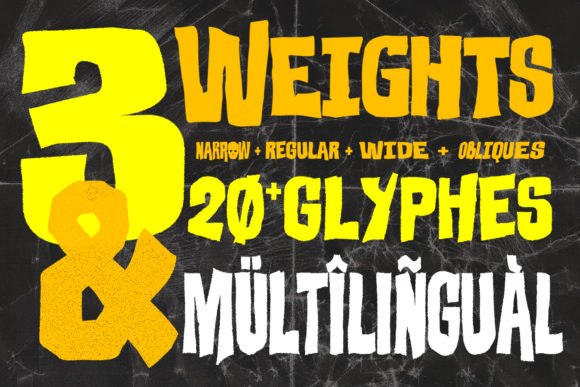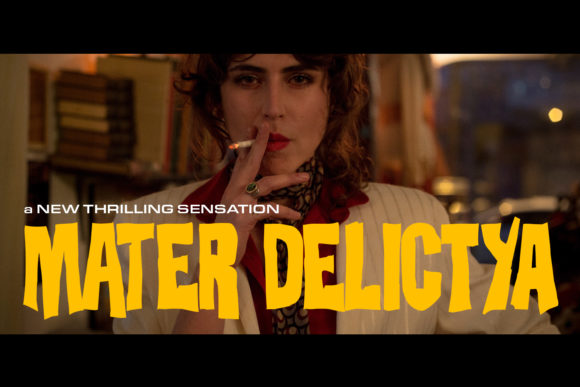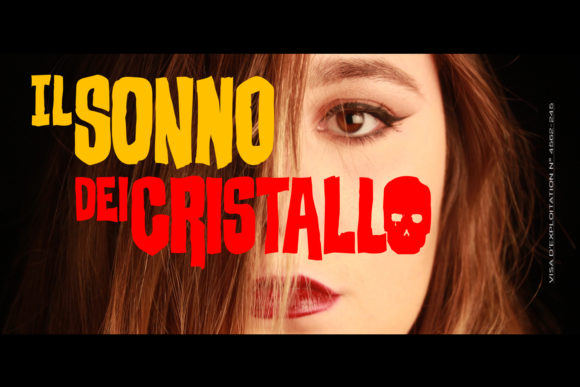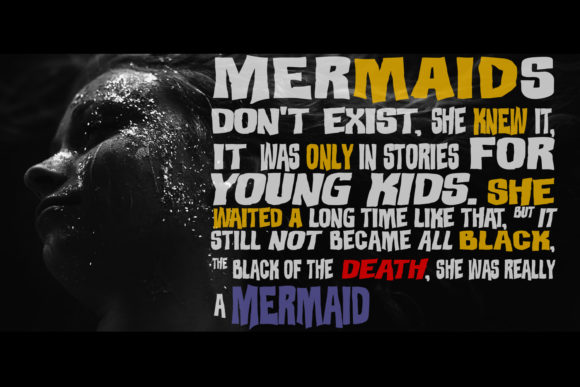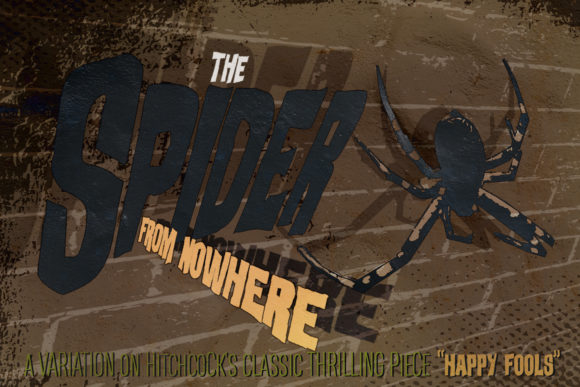
The Gialle Family Font: A Nostalgic Tribute to Golden Era European Cinema
Are you a designer, crafty enthusiast, or simply a fan of vintage European cinema? Look no further than the Gialle Family Font, a true type homage to the golden era of European cinema from the mid-seventies. Inspired by the Italian style movies known as Gialli, this font family is a must-have for anyone looking to add a touch of nostalgia and sophistication to their designs.
The Gialli: A Unique Italian Style of Cinema
The Gialli, also known as Gialle, was a particular Italian style of movie that emerged in the 1970s. Introduced by masters like Dario Argento and Lucio Fulci, these films were known for their stylish and suspenseful storytelling, often blending elements of mystery, thriller, and horror. The Gialli films were characterized by their use of vibrant colors, elaborate set designs, and a distinctive visual style that has become iconic in the world of cinema.
The Gialle Family Font: A Tribute to the Golden Era
The Gialle Family Font is a typographic tribute to the golden era of European cinema, specifically the Gialli films of Italy. This font family consists of three weights, which can be used to create endless unique designs with just one download. The bold letters of the Gialle font have exceptional readability, making them perfect for a variety of design applications, including:
- Movie posters and film graphics
- Album sleeves and music packaging
- Halloween party flyers and invitations
- Typography art and design projects
Design Possibilities with the Gialle Family Font
With the Gialle Family Font, the design possibilities are endless. The three weights included in the font family allow you to experiment with different typography styles, from bold and eye-catching to elegant and refined. Here are a few ideas to get you started:
- Create a vintage-style movie poster using the bold weight of the Gialle font.
- Design an album sleeve with a distressed, worn look using the medium weight.
- Make a spooky Halloween party flyer with the light weight of the Gialle font.
Why Choose the Gialle Family Font?
So why choose the Gialle Family Font for your design projects? Here are just a few reasons:
- Unique and nostalgic style: The Gialle font family offers a distinctive and retro aesthetic that’s sure to stand out in any design.
- High readability: The bold letters of the Gialle font are designed for maximum readability, making them perfect for titles, headings, and other display text.
- Versatility: With three weights to choose from, you can use the Gialle font family for a wide range of design applications.
In conclusion, the Gialle Family Font is a must-have for designers, crafty enthusiasts, and fans of vintage European cinema. With its unique and nostalgic style, high readability, and versatility, this font family is perfect for a wide range of design applications. Whether you’re creating movie posters, album sleeves, or Halloween party flyers, the Gialle Family Font is sure to add a touch of sophistication and elegance to your designs.